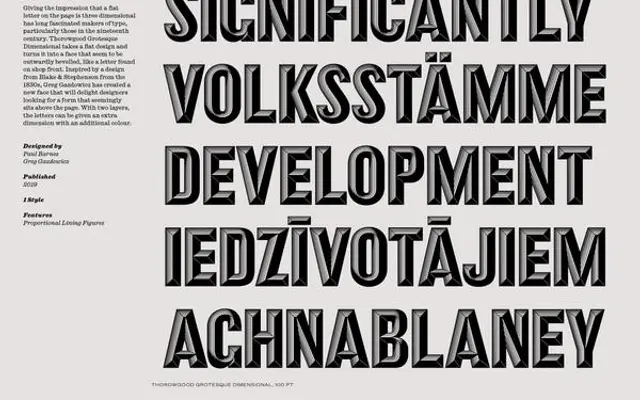
Thorowgood Grotesque
Thorowgood Grotesque specimen from Commercial Type
A grotesque revival from the Thorowgood archive, with a six-weight workhorse plus Open and Dimensional display companions.
A grotesque revival from Commercial Type, drawn from the nineteenth century output of William Thorowgood's London foundry. The standard family runs six weights from Light to Black with matching italics, and the collection extends into Thorowgood Grotesque Open and Thorowgood Grotesque Dimensional for outlined and shaded display work. Sits in editorial, packaging and heritage identity work that wants Victorian sans-serif character with a contemporary system around it.
Commercial Type list Thorowgood Grotesque alongside Thorowgood Egyptian as part of their reworking of the William Thorowgood nineteenth century archive. The collection covers a six-weight grotesque, an Open companion and a Dimensional display cut.